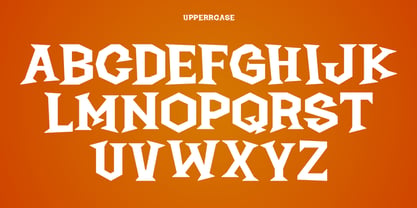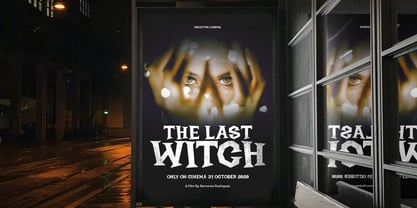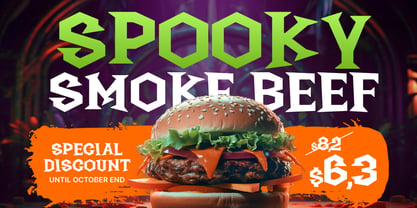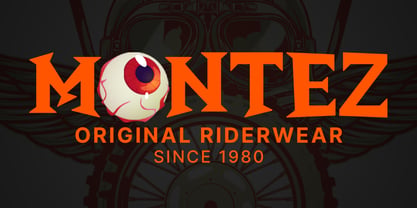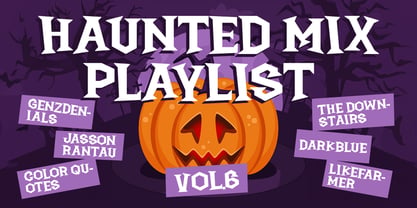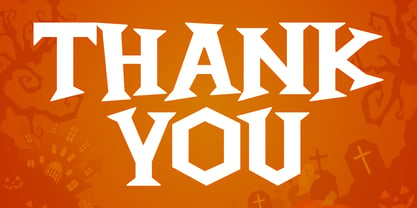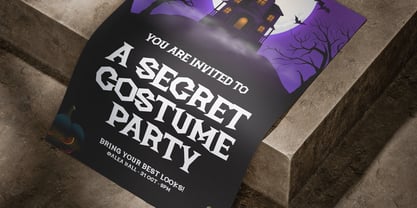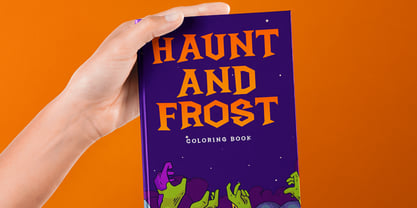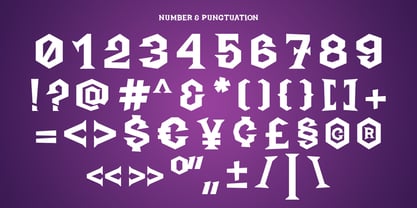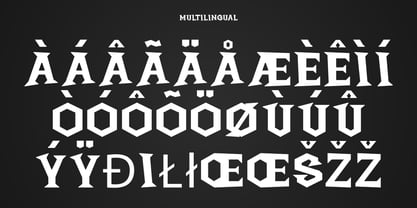
Wicked Night
by Pekotype
The Wicked Night Font Family was designed by Galang Bryan and published by Pekotype. Wicked Night contains 1 styles. More about this family
Wicked Night – Spooky Halloween Display
Get ready to unleash the spirit of Halloween with WICKED NIGHT, a spooky display font crafted to bring thrills and chills to your designs. With its sharp edges, eerie shapes, and bold presence, this font perfectly captures the essence of a haunted night. WICKED NIGHT is the ultimate typeface for all things Halloween. Whether it’s event posters, party invitations, seasonal branding, logos, merchandise, or social media promotions, its haunting look makes it ideal for designs that need to stand out with a creepy yet playful vibe.
Designers: Galang Bryan
Foundry: Pekotype